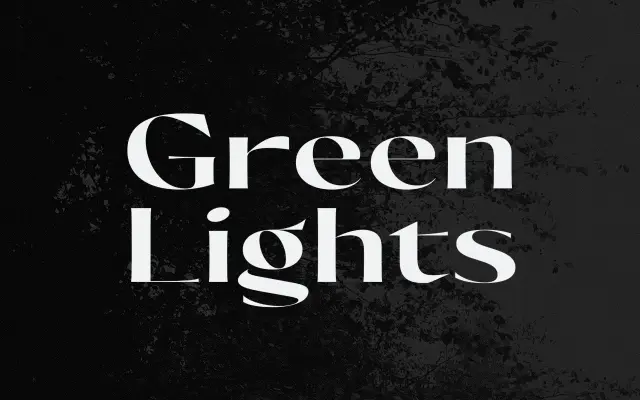
Olivette
A high-contrast serif with extreme stroke variation and wide, open letterforms, designed for large-size display use on screen and in print.
Extreme stroke contrast and spacious construction give Olivette a distinctly elegant character at headline sizes, where its fine hairline details can be appreciated. The family spans six weights from Light to Heavy, each with a matching italic, covering broad Latin script support across 25 languages. Connary Fagen suggest pairing it with simpler typefaces such as Greycliff CF at smaller text sizes, letting Olivette occupy generous white space.
Olivette features extreme stroke contrast with wide, open construction, placing it firmly in the high-contrast serif tradition suited to display and large-size use. Its combination of fine hairlines and broad strokes aligns with a contemporary didone sensibility.